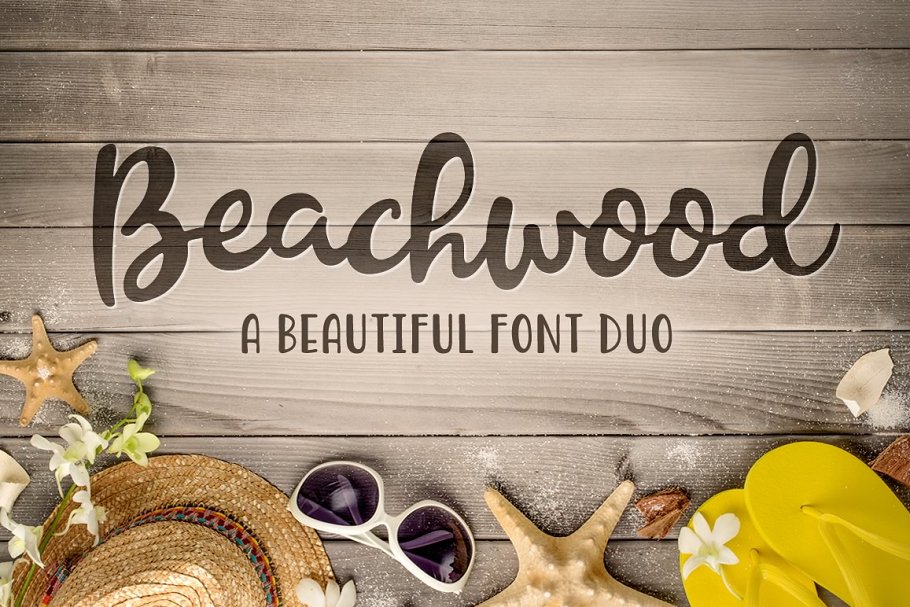
Introducing the Beachwood Font Duo, a stunning collection of fonts designed to captivate and inspire. Created by the talented Denise Chandler, this hand-drawn font duo offers a unique blend of casual elegance and stylish sophistication.
With its script and sans styles, Beachwood allows you to effortlessly create beautiful and eye-catching designs. Whether you're designing invitations, prints, greeting cards, or any other creative project, this font duo is perfect for bringing your vision to life.
The script style of Beachwood adds a touch of whimsy and charm to your designs. Its hand-drawn quality gives your text a personal and authentic feel, making it perfect for adding a warm and inviting touch to wedding invitations, party decorations, and more.
On the other hand, the sans style of Beachwood brings a sense of modernity and versatility to your designs. Its clean and crisp lines make it ideal for creating bold headlines, logos, and branding materials that demand attention.
What sets Beachwood apart is its ability to evoke emotion and create a connection with your audience. Its unique and captivating style instantly draws the eye and leaves a lasting impression. Whether you're aiming for a playful and fun tone or a sophisticated and elegant look, Beachwood has got you covered.